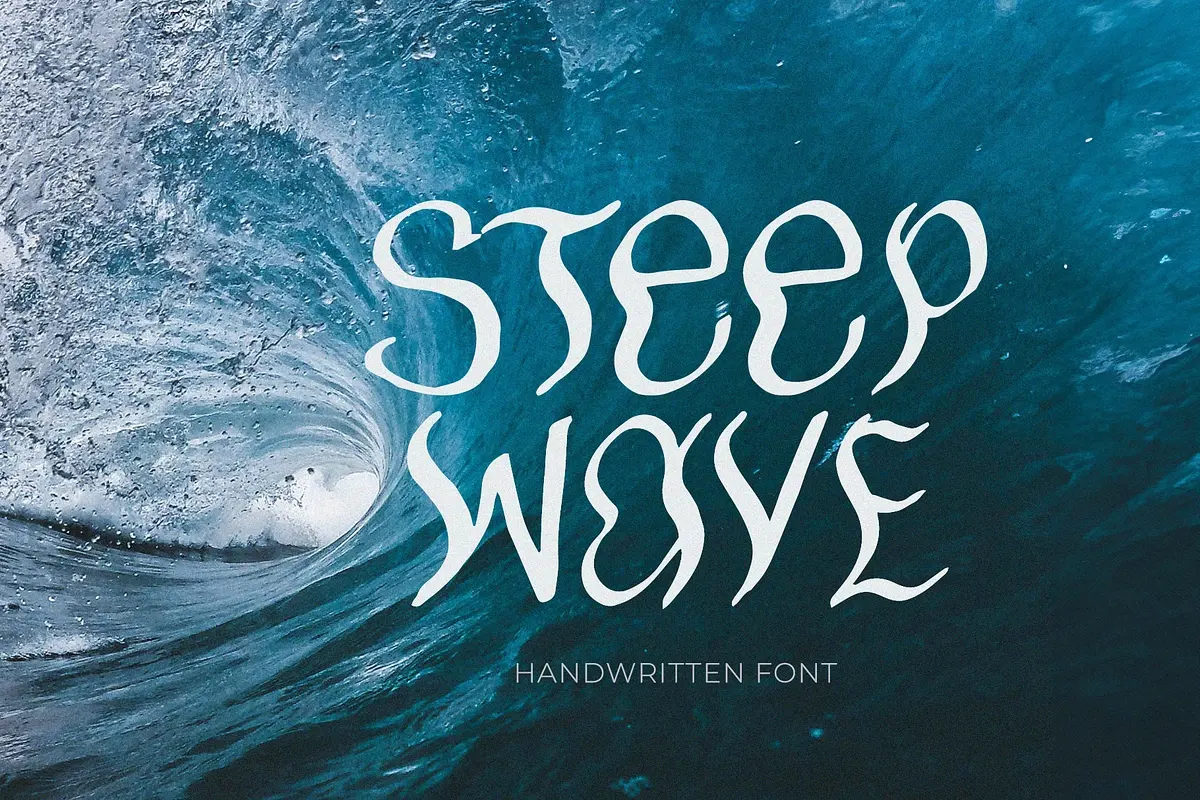
Steep Wave Font Free Download is a quirky and playful handwritten typeface that adds a burst of personality to your creative projects. With its wavy strokes and irregular rhythm, this font captures a carefree, youthful energy that’s perfect for social media posts, greeting cards, DIY crafts, stickers, and fun branding projects.
Its whimsical style feels both spontaneous and approachable, making it a great choice for designs that aim to be relatable and eye-catching. Whether you're working on a casual blog header or a colorful product label, Steep Wave brings a hand-crafted charm that stands out. Steep Wave Font Free Download gives you the opportunity to test this unique font for free in personal work before committing to a commercial license.
Let your creativity ride the wave with Steep Wave — the fun, offbeat font your project needs.